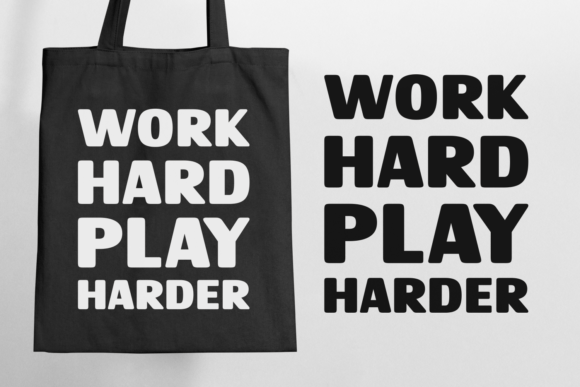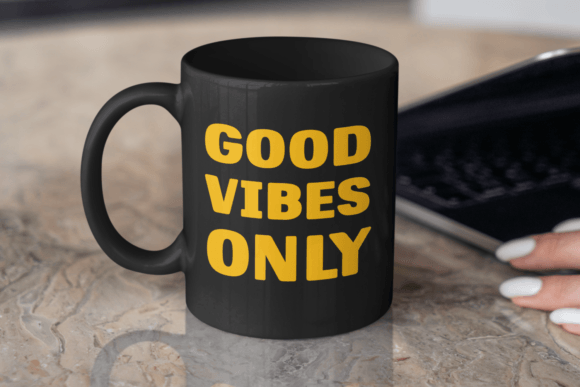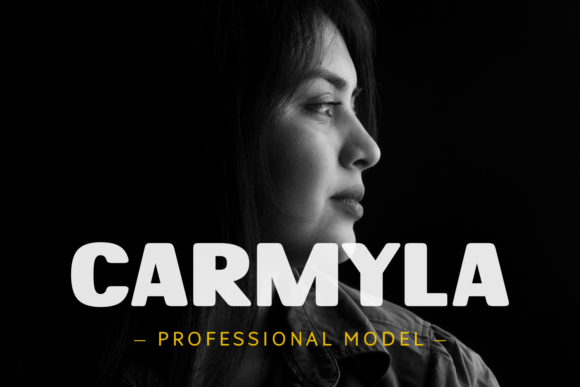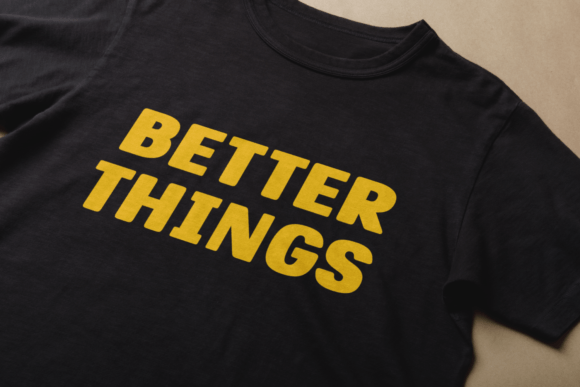
The Power of Typography: Elevating Your Design with Choose Together Font
Remember that moment when you’re brainstorming ideas for a new project, and the perfect font suddenly clicks into place? It’s like the entire design comes together, and you know you’re onto something special. For designers, finding the right font can be the difference between a good design and a great one. That’s where Choose Together Font comes in – a bold sans-serif font designed to make your message shine.
With its clean lines and strong strokes, Choose Together Font is perfect for headlines, branding, and statements that demand attention. Its simplicity and elegance make it an ideal choice for a variety of design projects, from branding and identity to packaging design and poster design. By incorporating the Choose Together Font into your design, you’ll add a touch of modernity and impact that’s sure to leave a lasting impression.
Choose Together Font Key Features
- Font Family: A sans-serif font with a modern and clean design, ideal for digital products and user interfaces.
- Unique Characteristics: The font features a unique set of ligatures and alternate characters, adding a touch of personality to digital products and user interfaces.
Choose Together Font Review
As a designer, I was excited to dive into the Choose Together Font. On the surface, it seems like a great choice for modern and creative projects. Here’s what I liked:
- ✨ Unique character set: The font has a distinctive feel to it, making it perfect for projects that require a bit of whimsy and personality.
- ✨ Versatility: Choose Together Font can be used in a variety of settings, from digital designs to print materials, and even web development.
- ✨ Wide language support: The font covers a range of languages, making it a great option for international projects.
- ⚠️ Limited font weights: The font only comes in a few weights, which may limit its usability in certain contexts.
- ⚠️ Not ideal for small text: The font’s design may not be the best choice for small text, as it can become difficult to read.
- ⚠️ Not included in some font libraries: Choose Together Font may not be included in some popular font libraries, which could cause issues in certain design software.
Overall, I think Choose Together Font is a solid choice for designers who want a unique and versatile font. While it may have some limitations, its strengths make it a great addition to any design project.
Some tips for getting the most out of the Choose Together font include:
– Using it for headings and titles to create a cohesive look.
– Pairing it with other fonts to create a unique and interesting font combination.
– Using it in designs that require a friendly and approachable tone.
Some common use cases for the Choose Together font include:
– Social media graphics and posts
– Marketing materials and brochures
– Website headers and footers
Alternatives to Choose Together Font
Lato is a popular sans-serif font that is highly legible and versatile. It is suitable for a wide range of applications, including body text, headings, and titles. Lato is a great choice when you need a clean and modern font that is easy to read. Compared to Choose Together Font, Lato is more modern and has a more subtle feel, making it a great choice for corporate and business applications.